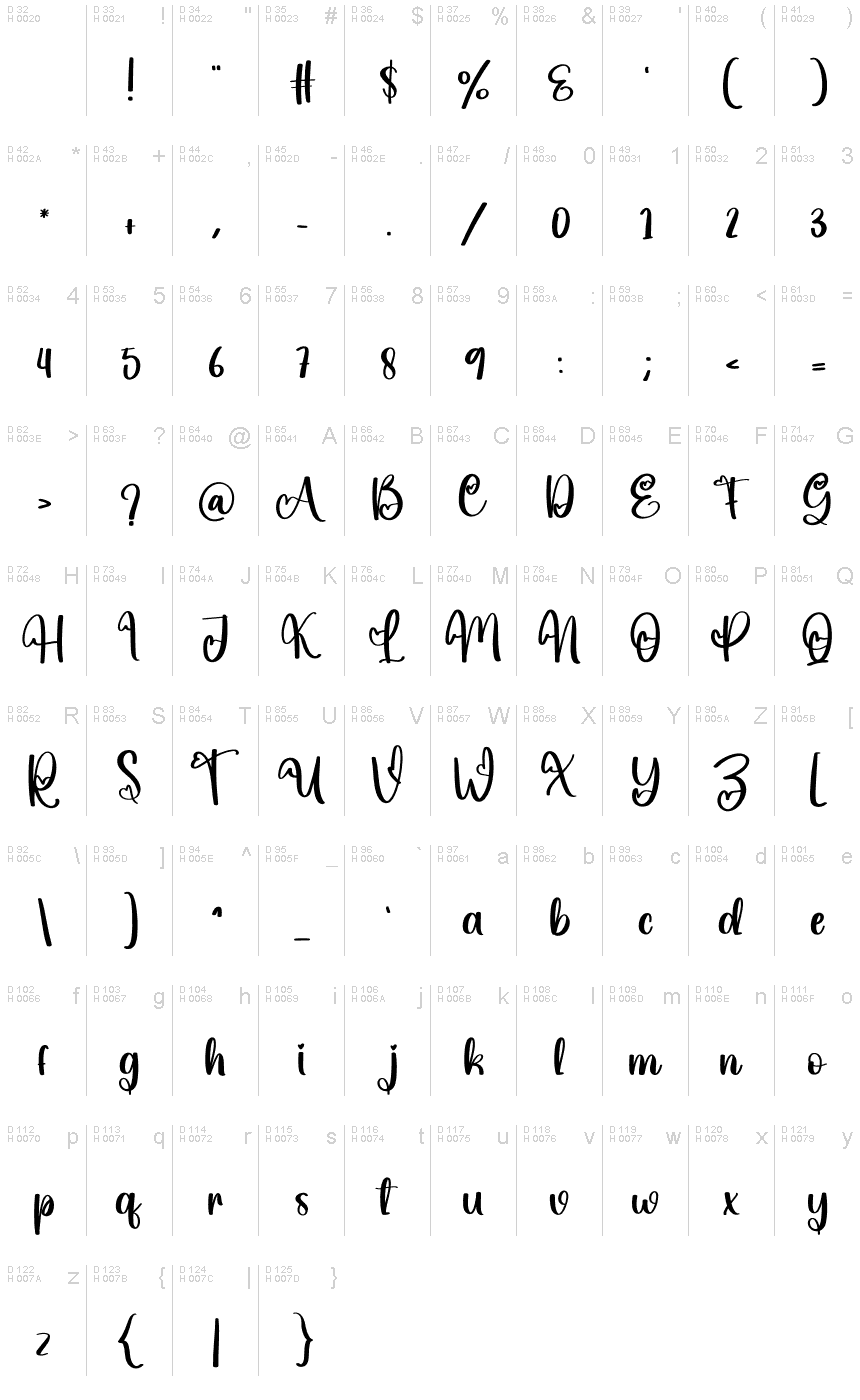
Allow
Allow, designed by Scratchones, is a semi-light handwritten font that exudes charm and personality. The fluidity of its characters suggests a casual elegance, with each stroke embodying the authenticity of handcrafted artistry. This font's aesthetic appeal lies in its balance between legibility and artistic flair, making it an excellent choice for designs that require a personal touch.
The flowing connections between letters in Allow give it a cohesive look often sought after in branding, invitations, and personalized stationery. Its semi-light weight ensures that the typeface maintains a delicate yet readable presence on both digital screens and printed materials.
Whether you're looking to add an intimate feel to your creative project or aiming for a design that stands out with its natural handwritten style, Allow is versatile enough to enhance various applications while keeping them grounded in visual warmth and approachability.